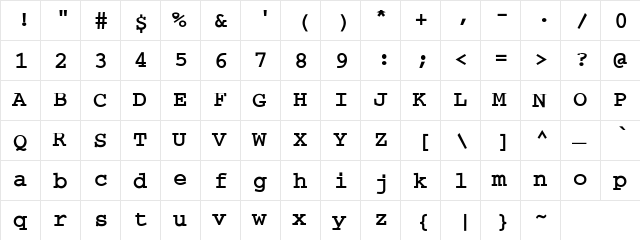
Courier-Bold-a Regular
Design Context for Courier-Bold-a Typeface
Courier-Bold-a uses fixed-width spacing throughout, giving it the structured, systematic character associated with coding environments and technical documentation. The heavy weight commands attention and anchors typographic hierarchies.
Well-suited to data-driven dashboards, coding tutorials, and any design that wants to reference the world of programming.
Pro Tip: Use Courier-Bold-a with slightly increased line-height for extended reading — fixed-width spacing can feel dense in longer passages without extra breathing room.